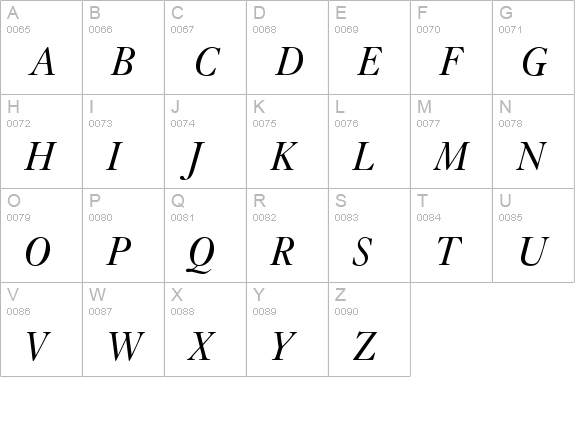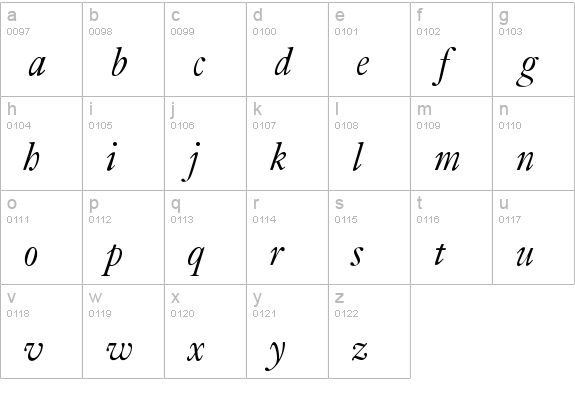
Kis Italic Font Details
Kis Italic is a distinctive, italic variant in the Kis typeface family \xE2\x80\x94 well suited to design and typography projects.
Kis Italic font is a stunning display font that effortlessly combines elegance and modernity. Its smooth and flowing lines create a sophisticated look, perfect for adding a touch of sophistication to any design project. This font features a unique italic style that adds a sense of movement and dynamism to text, making it visually appealing and engaging. The carefully crafted letterforms are sleek and stylish, with just the right amount of curvature to create a harmonious balance. But the best part is that Kis Italic font is available for free! Yes, you heard that right - this amazing font can be downloaded completely free of charge at FontsMarket.com. It's a fantastic opportunity to enhance your creative projects without breaking the bank. Whether you're designing a logo, creating eye-catching headlines, or adding a touch of elegance to your website, Kis Italic font is the perfect choice. Its versatility and timeless appeal make it suitable for a wide range of applications, from print materials to digital media. So why wait? Explore the endless possibilities of Kis Italic font and elevate your designs to a whole new level. Download it for free today at FontsMarket.com and let your creativity soar.